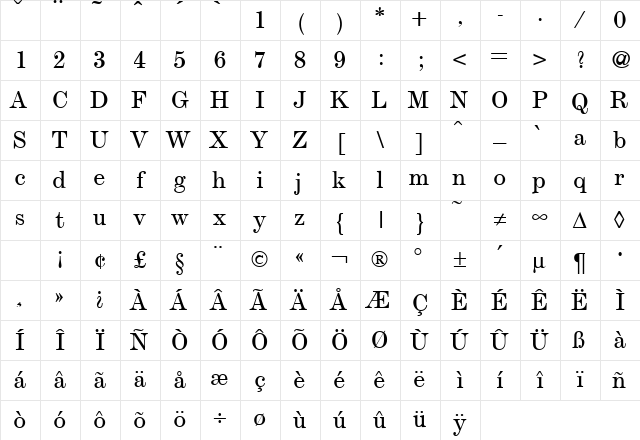
Modesto Regular
Modesto Family
Design Context for Modesto
Modesto is a composed and adaptable typeface that performs quietly and consistently across a wide range of design contexts.